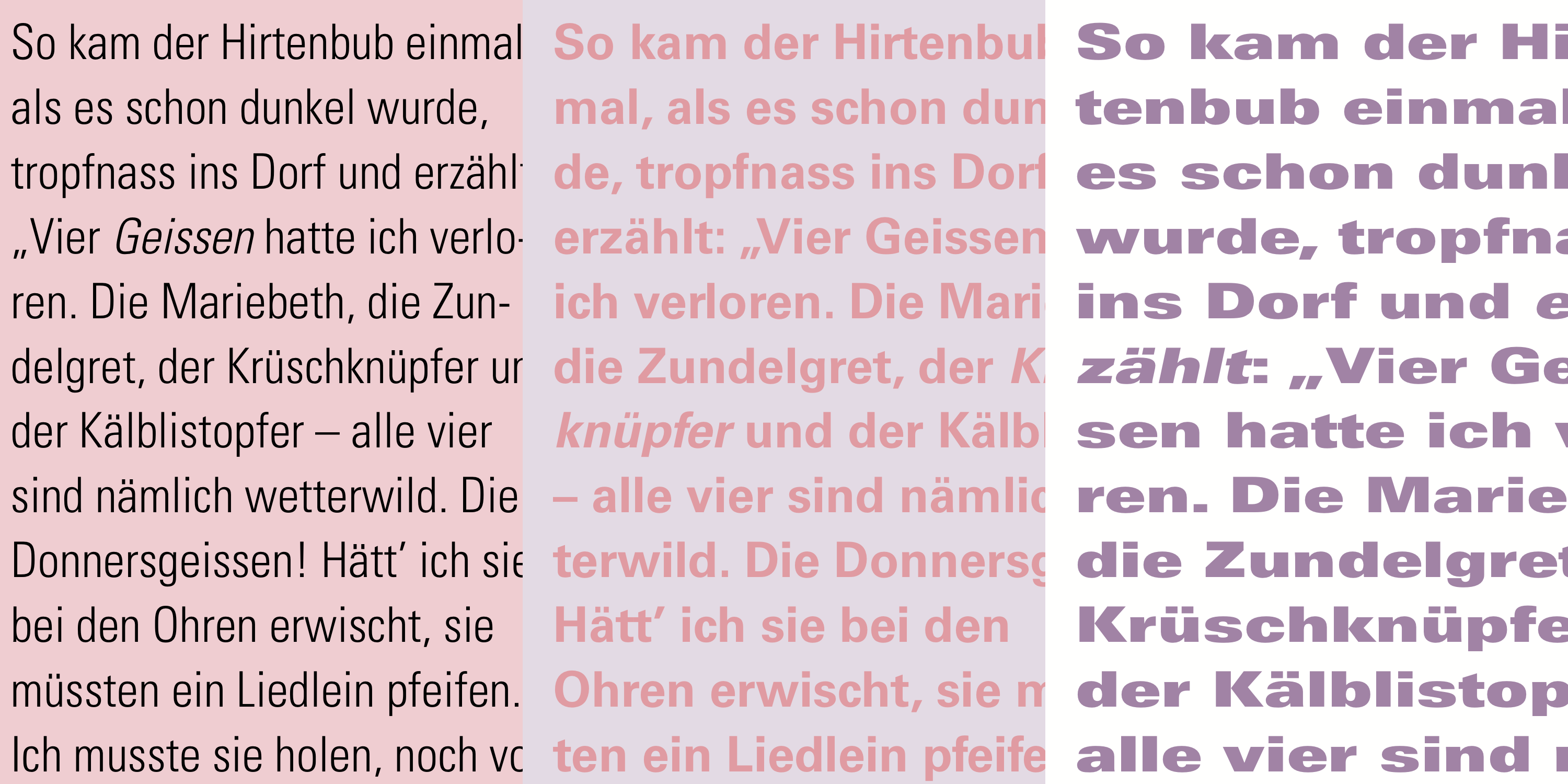
Univers Cyrillic Free Download
Univers Cyrillic Font Free Download is a versatile and modern sans-serif typeface designed specifically for Cyrillic script usage. It’s perfect for multilingual branding, editorial design, website interfaces, corporate identity, and international marketing materials.
What makes this font so exciting is its clean, geometric shapes combined with excellent legibility, making it suitable for both print and digital media. Univers Cyrillic Font bridges cultural gaps with style and clarity, supporting diverse communication needs.
Univers Cyrillic Font offers multiple weights such as Light, Regular, Medium, Bold, and Black—allowing designers to create dynamic typographic hierarchies and versatile layouts across languages.
Enhance your global projects with the sleek and professional look of Univers Cyrillic Font Free Download, and make your designs universally impactful and readable.